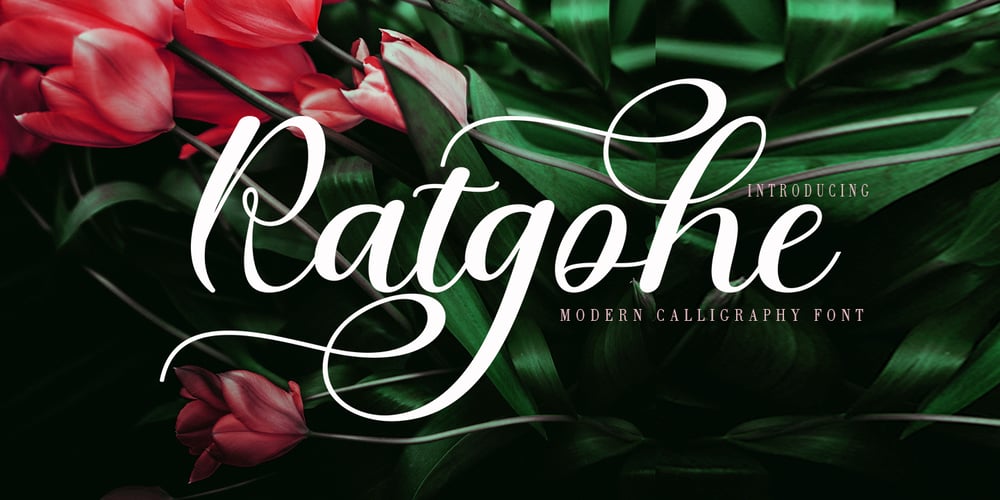
Ratgohe Font Family was designed by khaidir and published by Gatype. Ratgohe contains 1 styles and family package options. Ratgohe is an elegant script font with a contemporary atmosphere and impeccable shapes, inspired by timeless classic calligraphy. Neither too thin nor too thick, balanced and varied,Ratgohe is designed to enhance the beauty of your project.These designs are used for branding, web and editorial design, print, crafts, quotes,It’s great for logos, wedding invitations, romantic cards, labels, packaging, name spelling and more.Ratgohe includes OpenType style alternatives, ligatures, and International support for most Western Languages. To enable the OpenType Stylistic alternative, you need a program that supports Adobe Illustrator CS, Adobe Indesign & CorelDraw X6-X7, Microsoft Word 2010 or a later version.How to access all alternative characters using Adobe Illustrator:https://www.youtube.com/watch?v=XzwjMkbB-wQ Ratgohe is coded with PUA Unicode, which allows full access to all additional characters without having to design any special software.Mac users can use Font Book, and Windows users can use Character Map to view and copy any additional characters for pasting into your favorite text editor / application.How to access all alternative characters, using the Windows Character Map with Photoshop:https://www.youtube.com/watch?v=Go9vacoYmBw